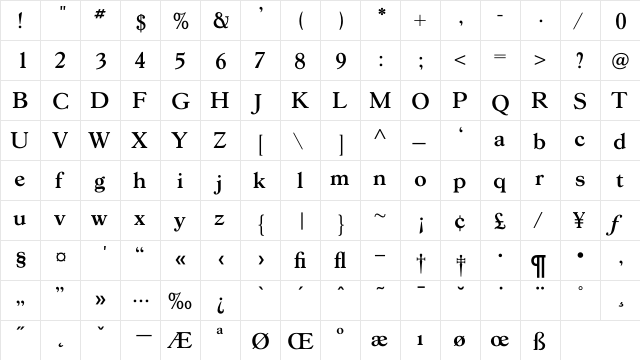
GoudY38Bold Regular
Design Context for GoudY38Bold Typeface
GoudY38Bold offers clean, dependable letterforms without strong stylistic allegiance, making it a practical choice for designers who need flexibility. Its bold stroke weight gives it real presence on the page.
Pro Tip: Pair GoudY38Bold with a font of contrasting weight or personality to build a more expressive typographic hierarchy.